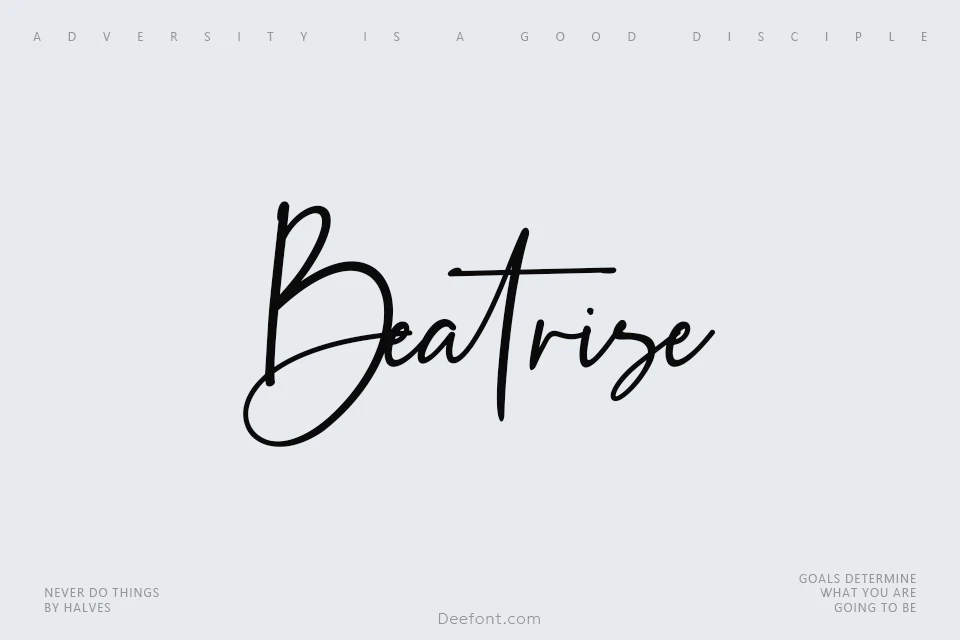
Beatrise Font
Beatrise Font is a stylish script font designed to elevate your creative projects. Perfect for logos, branding, titles, social media posts, advertisements, and product packaging, it adds a touch of elegance and sophistication. Its versatility extends to photography, watermarks, special events, magazines, and web design, making it ideal for diverse applications. With its flowing lines and modern aesthetic, Beatrise enhances visual appeal across digital and print media. Whether you’re crafting a brand identity or adding flair to a special event, Beatrise ensures your designs stand out with its refined, handwritten charm.